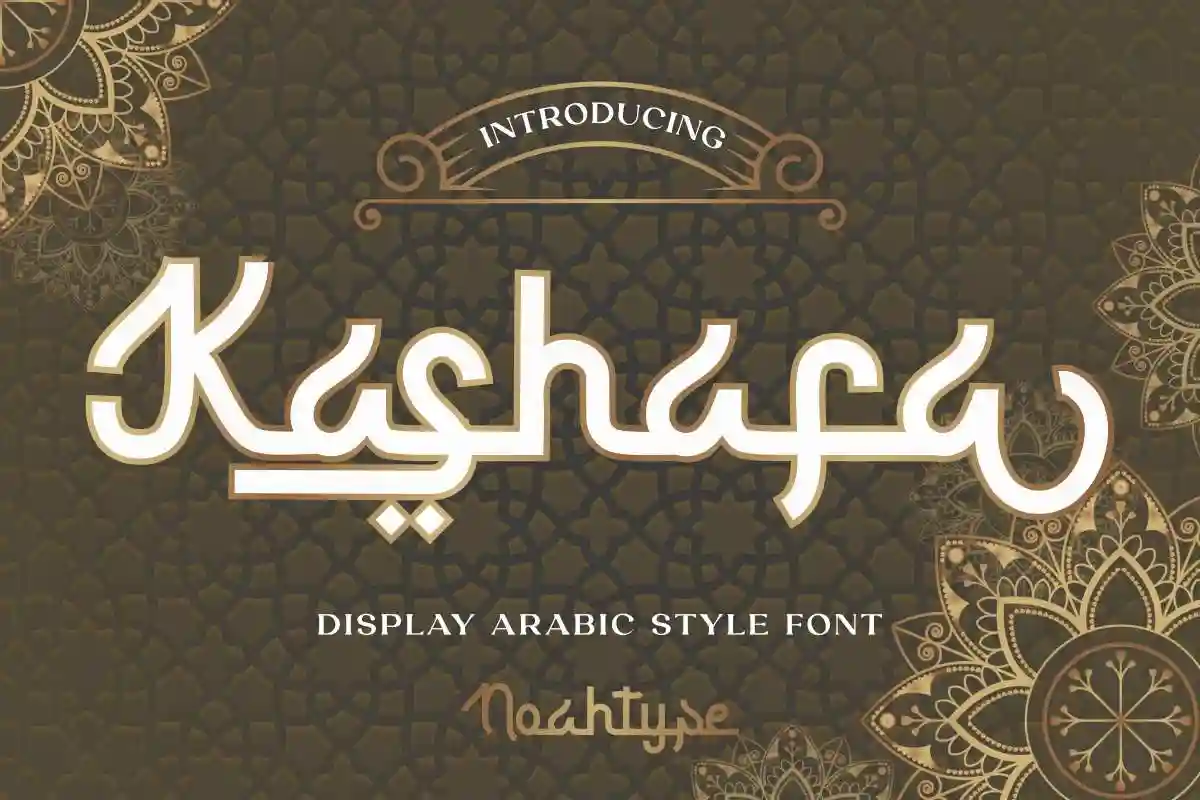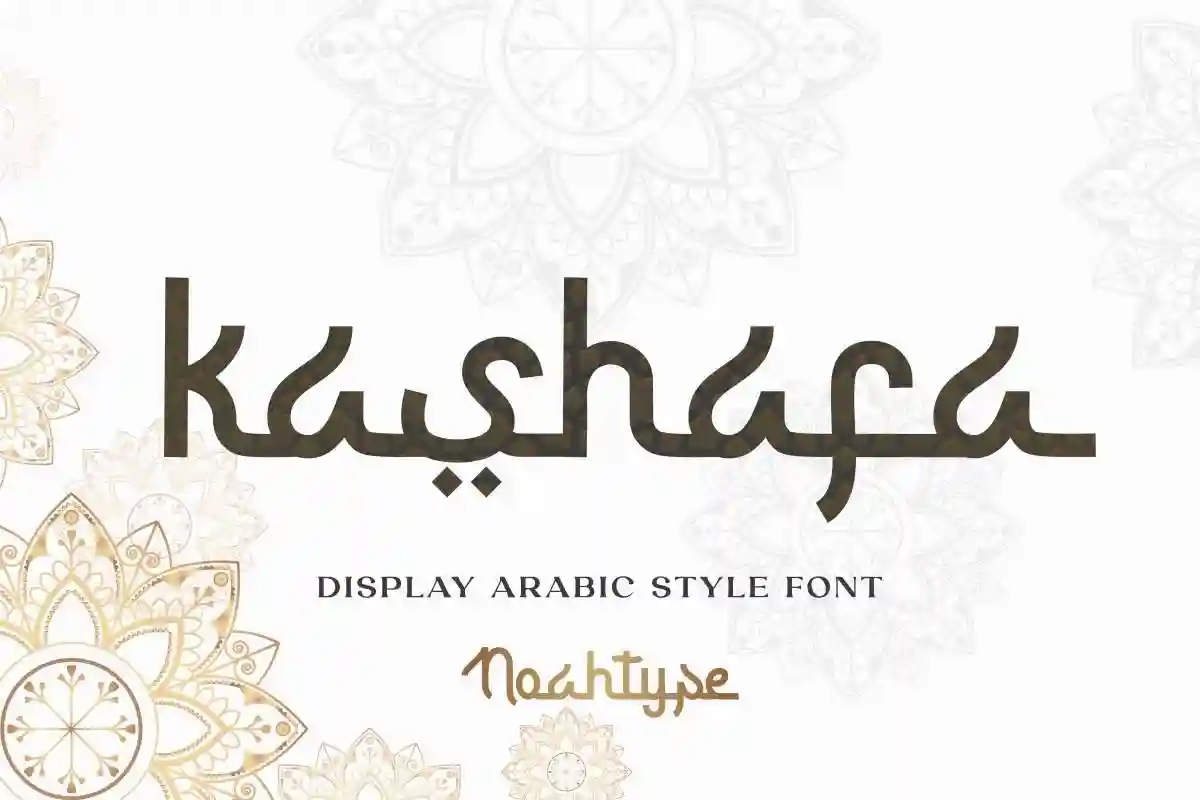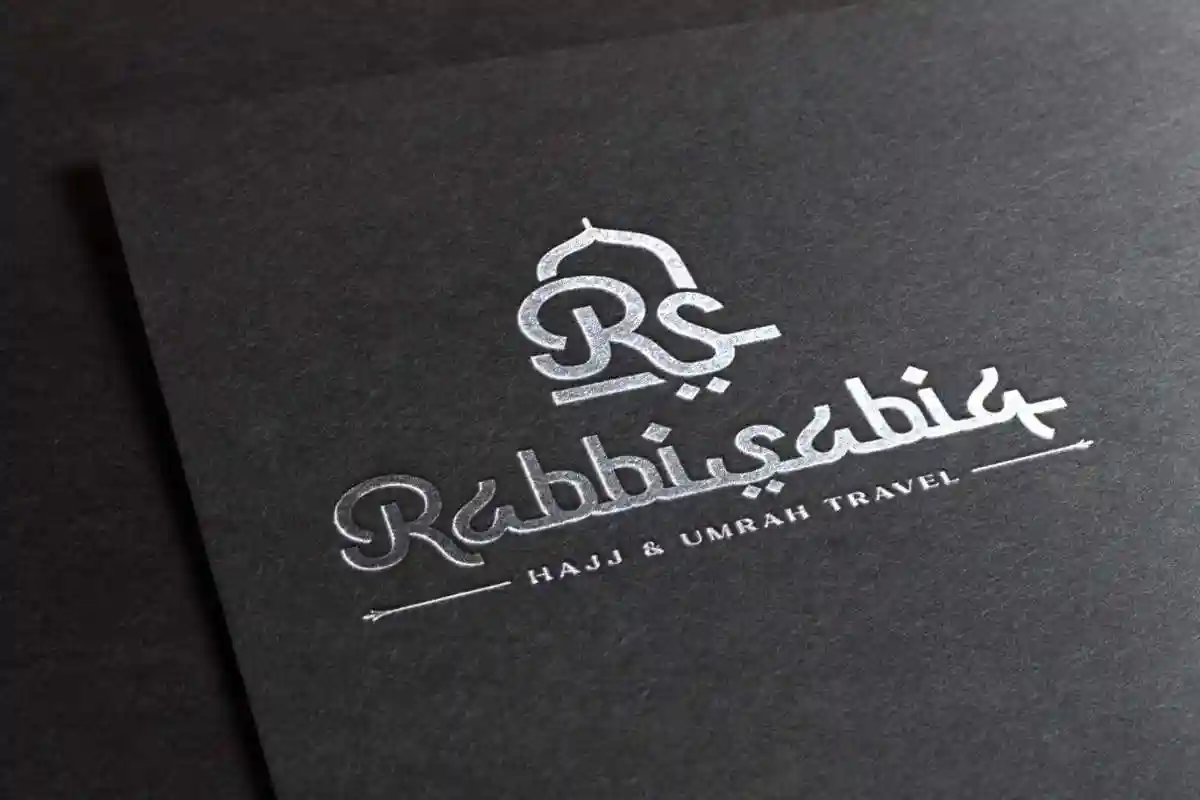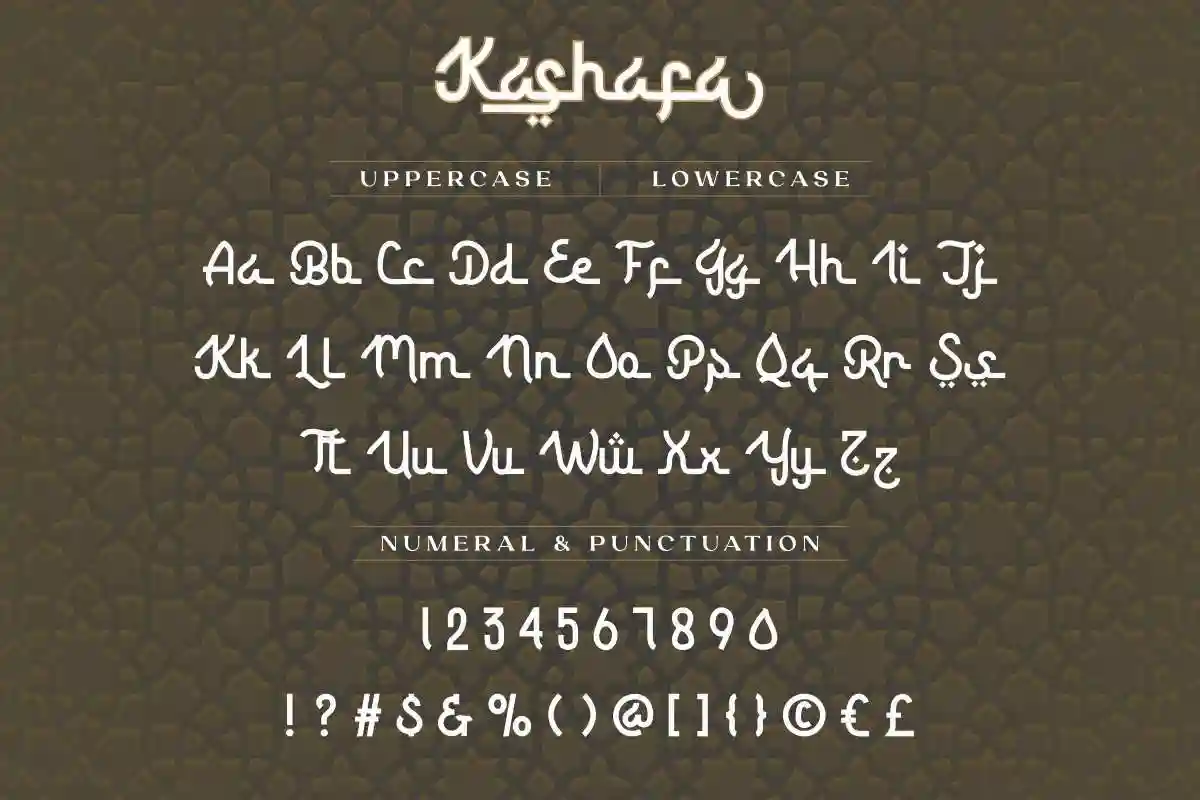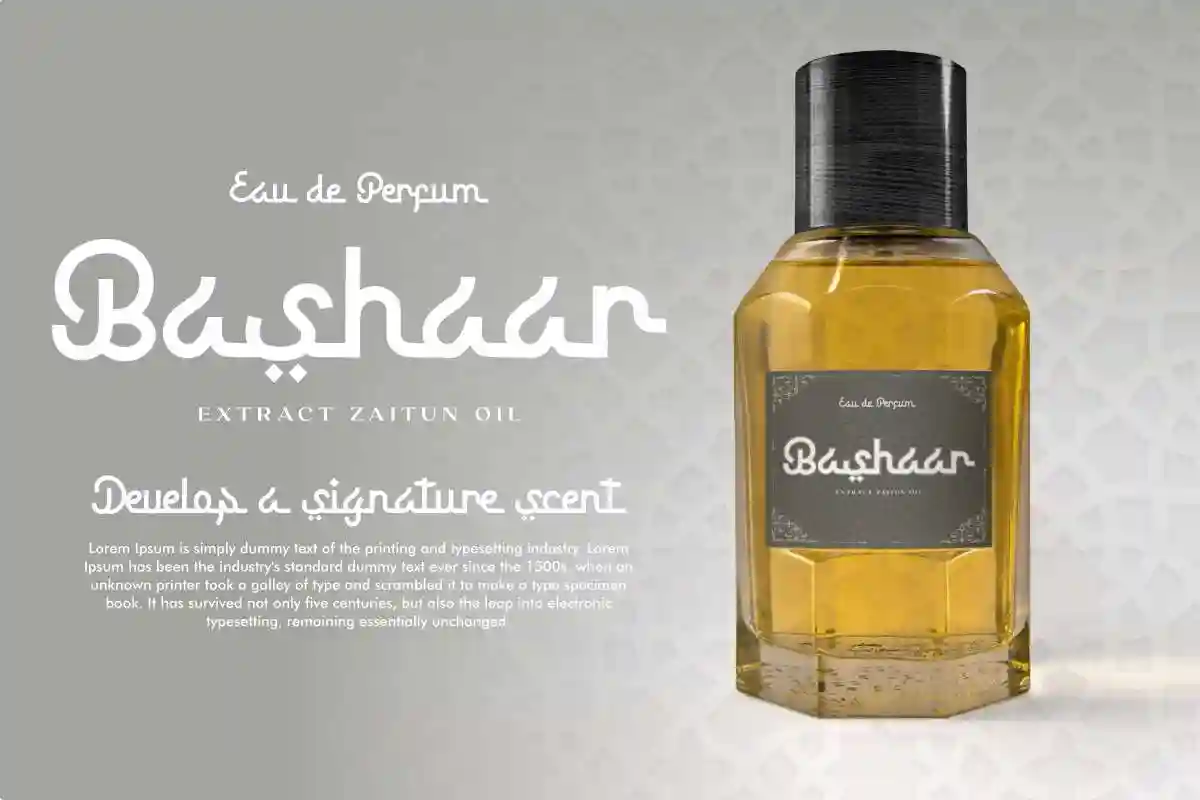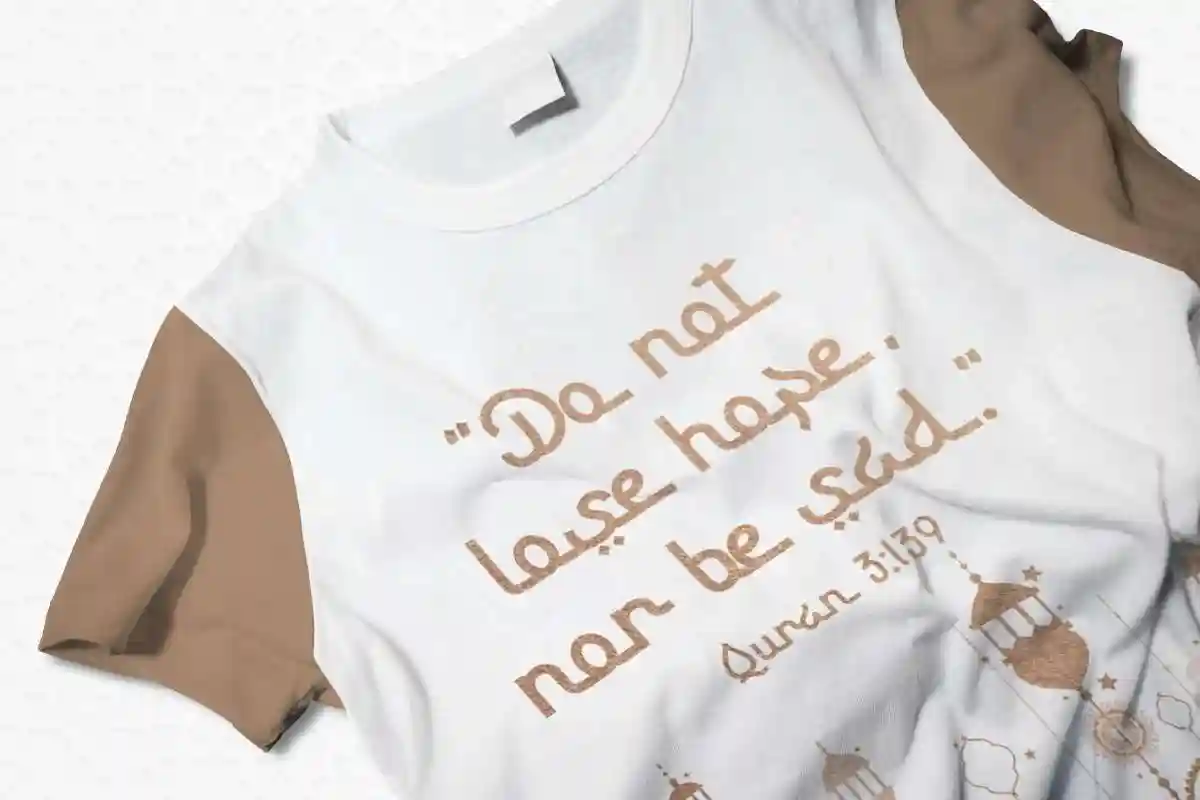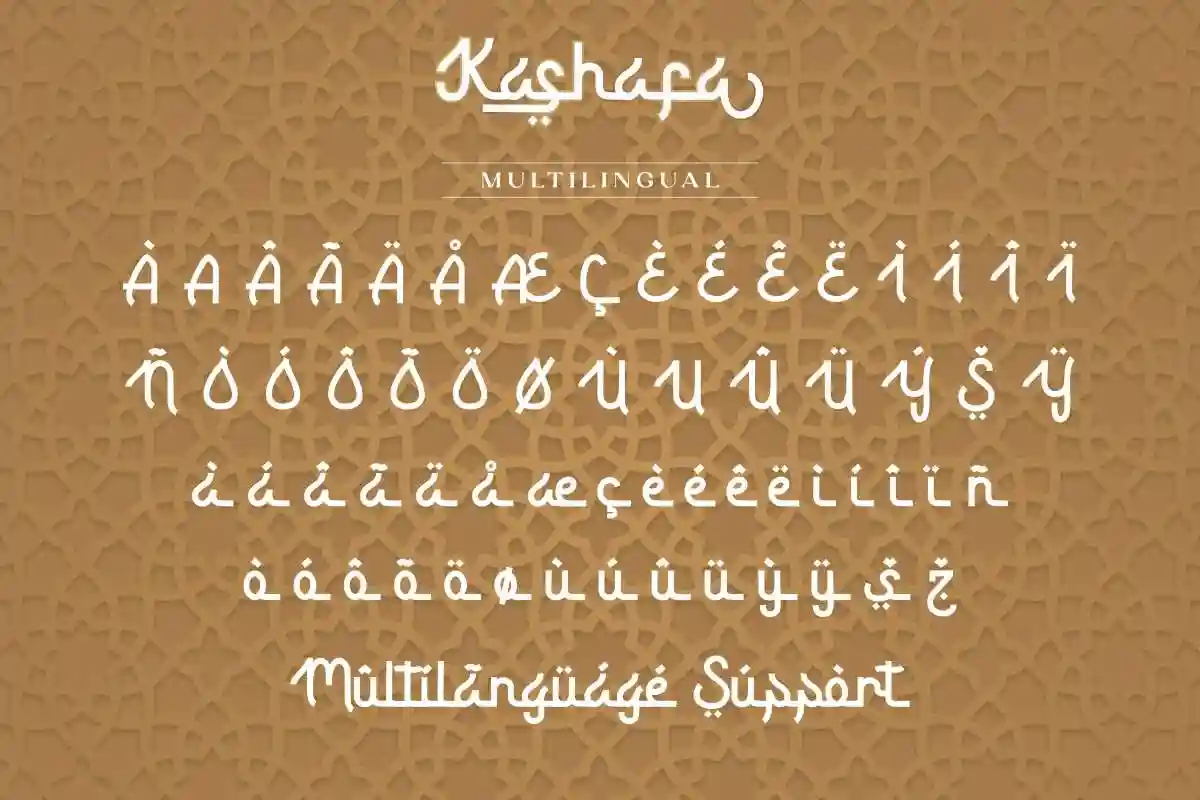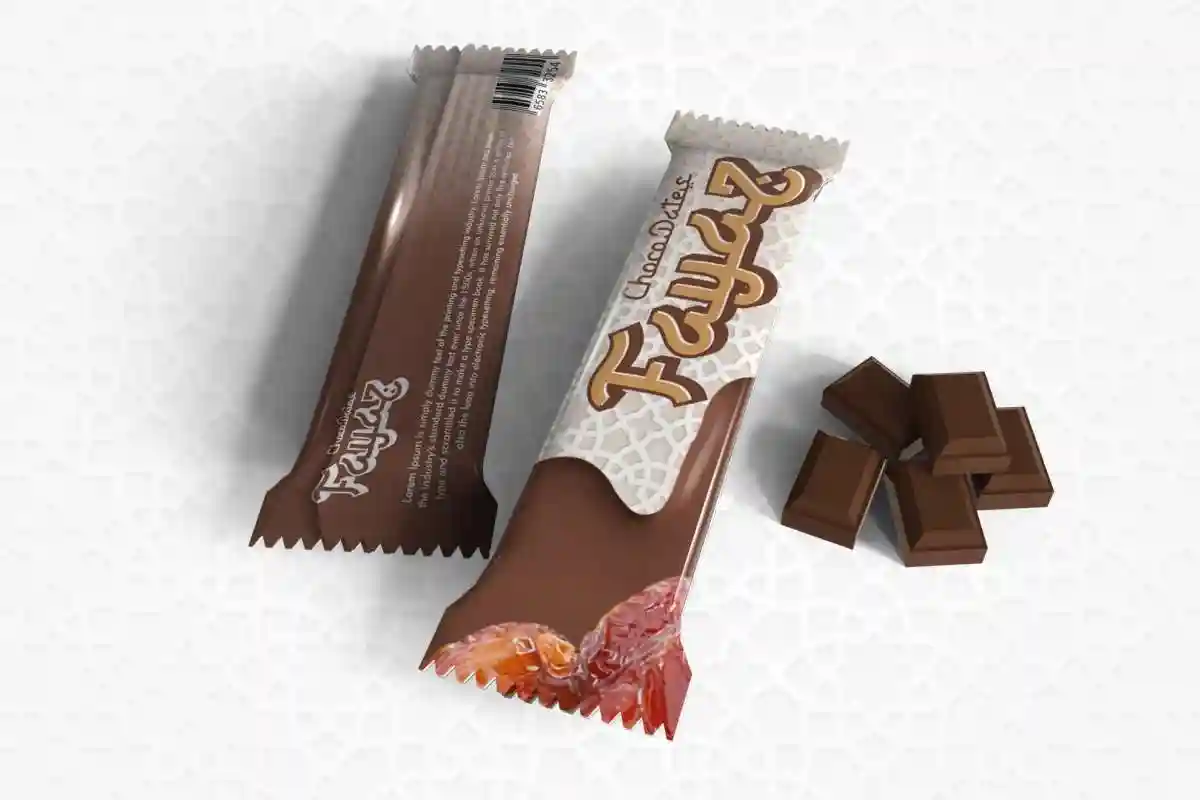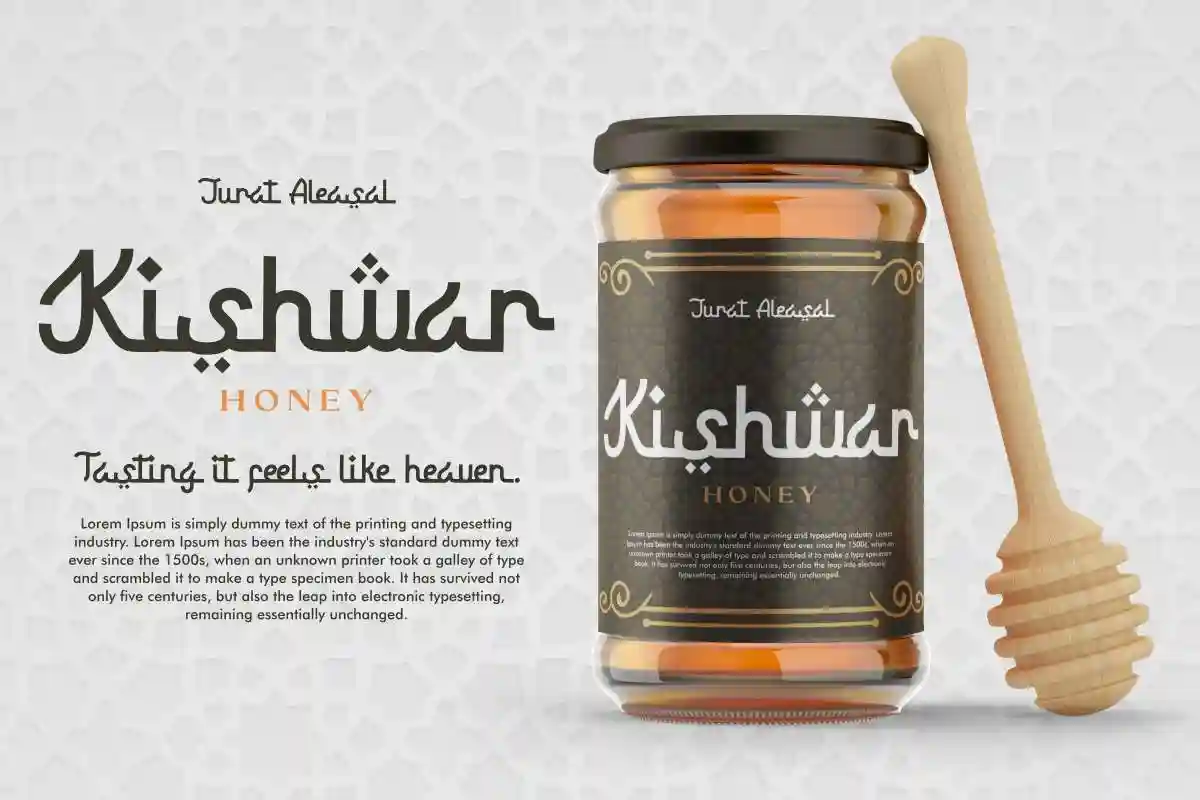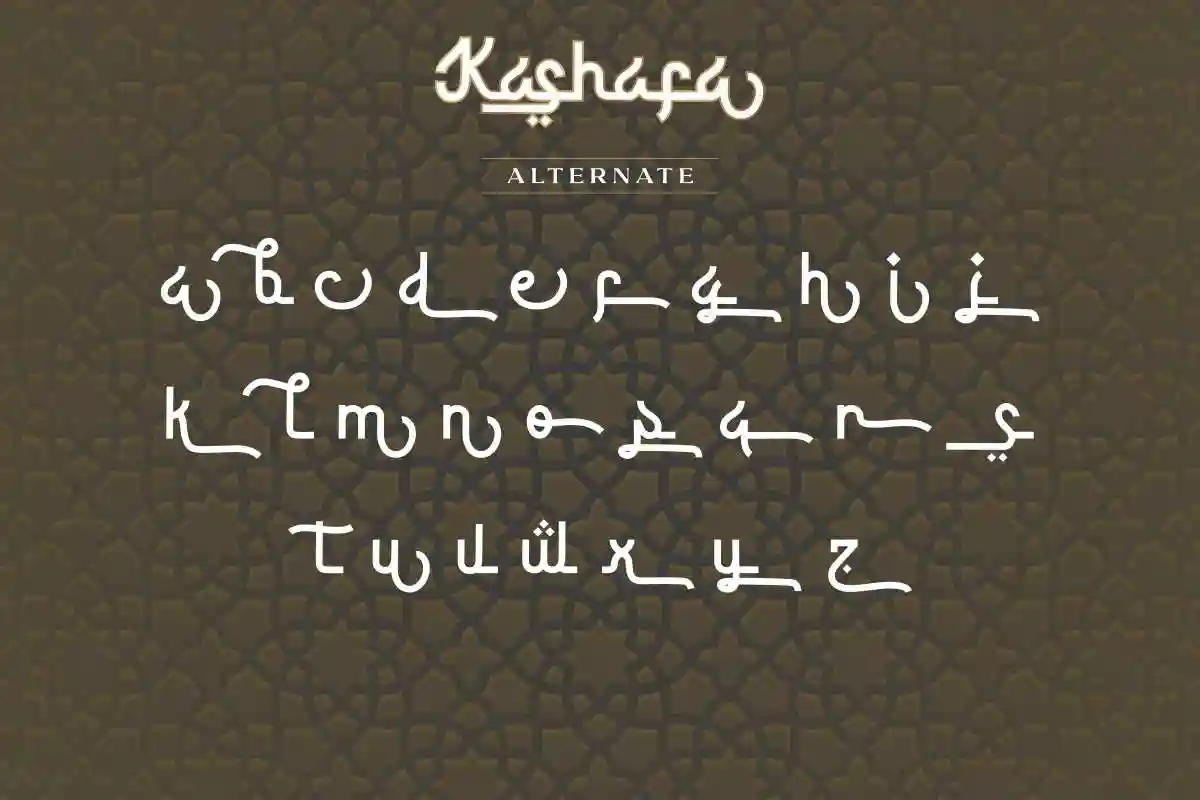
Kashafa Arabic Font
Kashafa Font is an Arabic display font by NoahType. This is unique Arabic style font inspired by beautiful Arabic letters. This font works for businesses or companies such as, fashion, food, hajj, religious, travel, treatment etc.
It includes a set of Uppercase and Lowercase Basic Characters, Numerals and Punctuation. The font is perfect for many projects, logo branding, invitation, product packaging, signage, titles and many more!